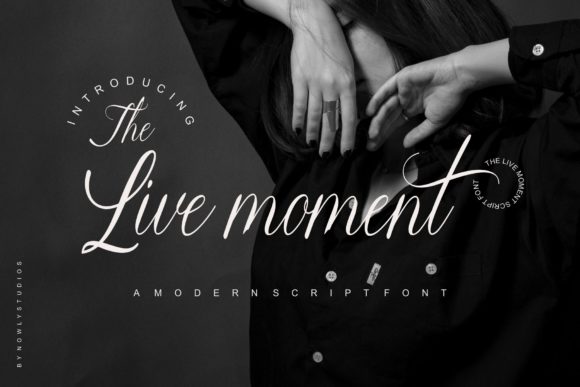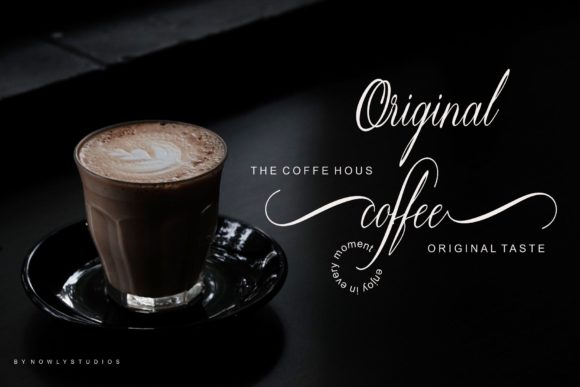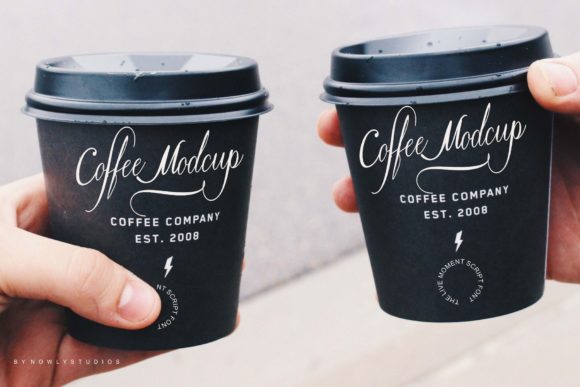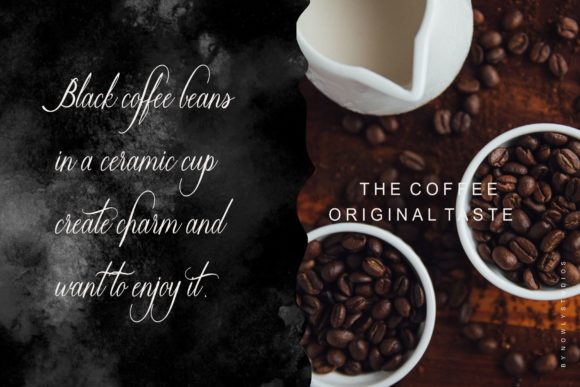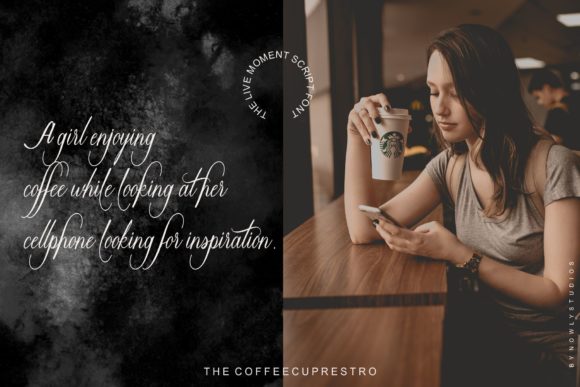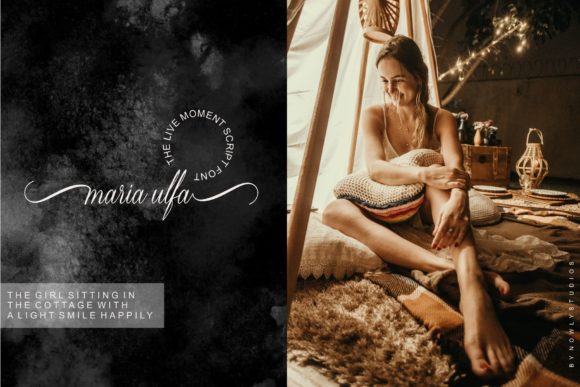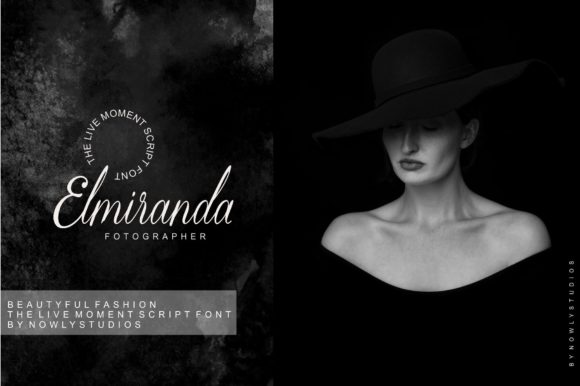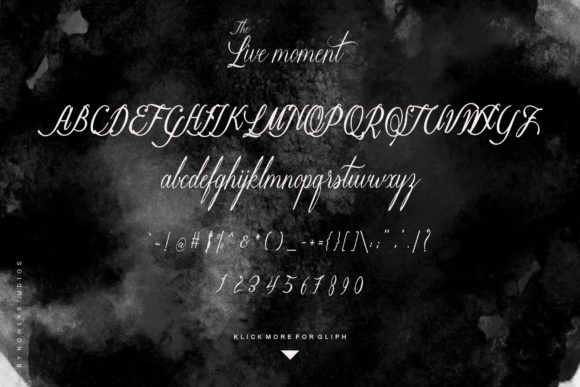
The Live Moment Font
About The Live Moment Font
The Live Moment is a friendly and modern script font with a unique style. It will add a romantic touch to any crafting project!